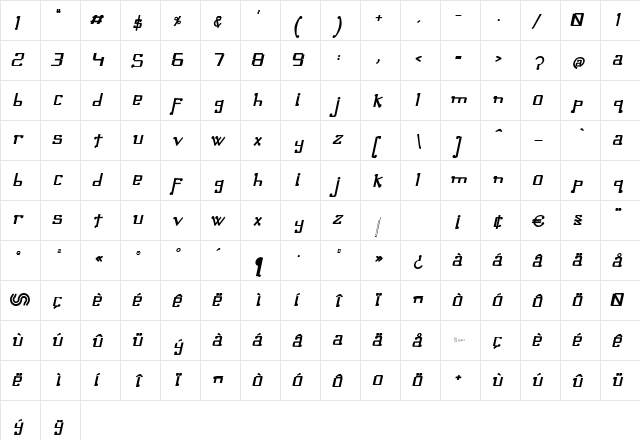
Omellons BoldItalic
Design Context for Omellons Typeface
Omellons offers clean, dependable letterforms without strong stylistic allegiance, making it a practical choice for designers who need flexibility. The slanted form adds forward momentum and visual energy. Its bold stroke weight gives it real presence on the page.
Pro Tip: Use Omellons for emphasis, pull quotes, and subheadings where its slanted energy can add rhythm to the layout.